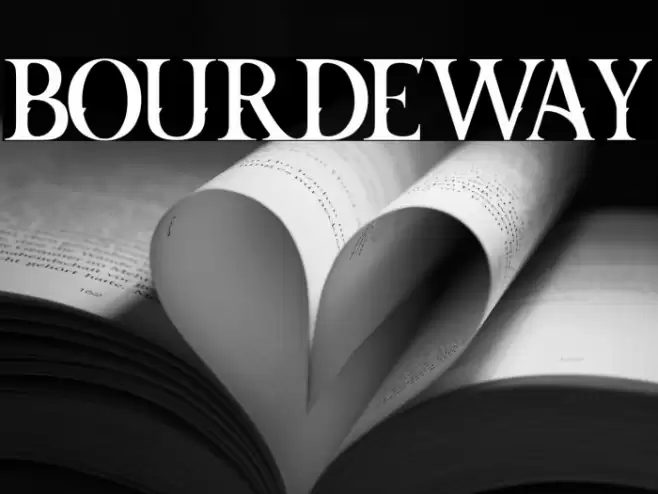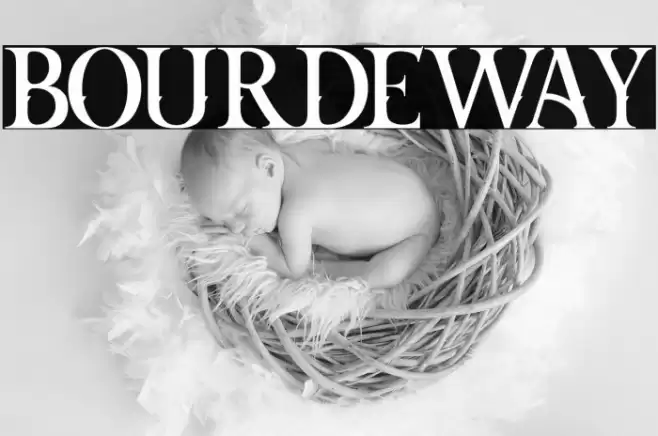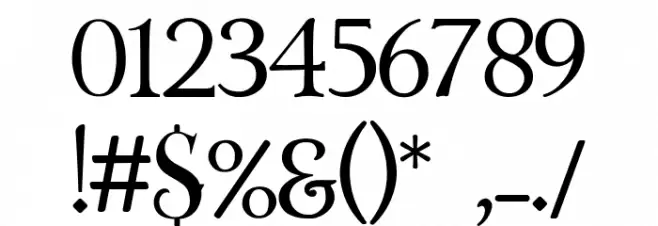
BOURDEWAY Font
BOURDEWAY Description
This font exhibits a bold and elegant serif style, characterized by its high contrast between thick and thin strokes. The serifs are pronounced and slightly curved, adding a touch of sophistication and classic appeal. The uppercase letters are tall and commanding, while the lowercase letters maintain a consistent style with a slightly more delicate appearance. The numerals are well-proportioned, complementing the overall aesthetic. Special characters are designed with the same attention to detail, ensuring a cohesive look across all glyphs. This font is ideal for projects that require a touch of elegance and formality.
A bold, elegant serif font with high contrast and pronounced serifs from Regular fonts.
- Proposed Projects: Ideal for luxury branding, editorial design, wedding invitations, and high-end product packaging.
- Overall Style: Classic